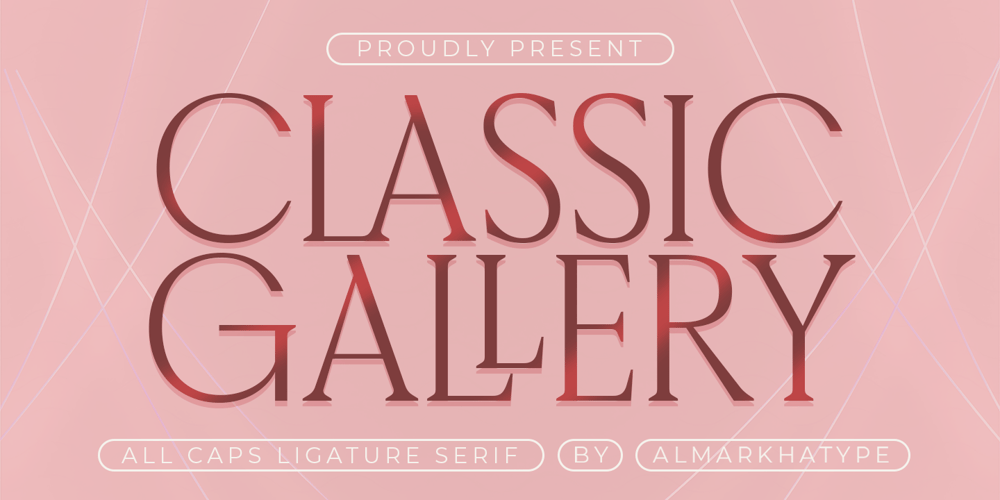
Classic Gallery
Classic Gallery font
Classic Gallery Font Family was designed by Abdul Malik Wisnu, Rivo Dwi Adriansyah and published by Almarkha Type. Classic Gallery contains 1 styles and family package options. Introducing Classic Gallery, a sophisticated modern vintage serif typeface featuring exquisite ligatures, special alternative glyphs, and comprehensive multilingual support. This versatile font is equally at home in both large and small sizes, making it perfect for a wide range of applications.Ideal for editorial projects, logo design, clothing branding, product packaging, magazine headers, and more, Classic Gallery adds a touch of elegance to any design. Whether you’re creating a timeless logo or adding a stylish text overlay to a background image, this font effortlessly elevates your projects with its classic yet contemporary appeal.–Uppercase